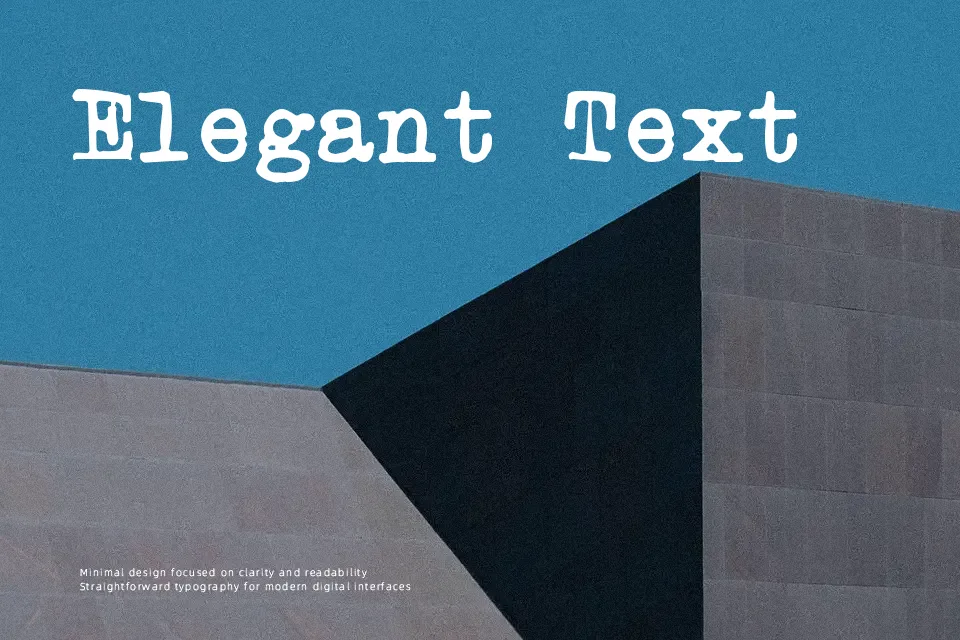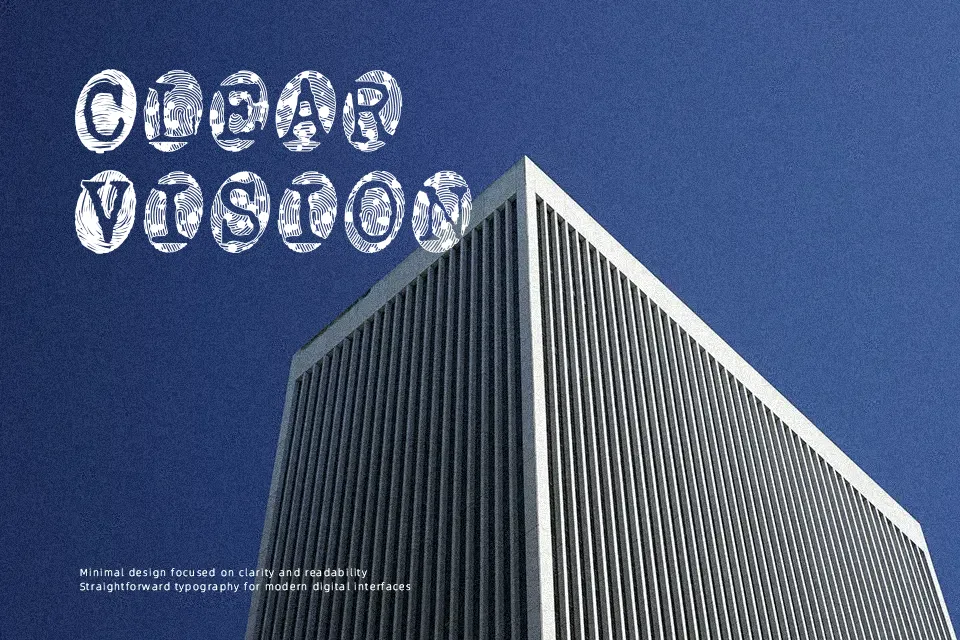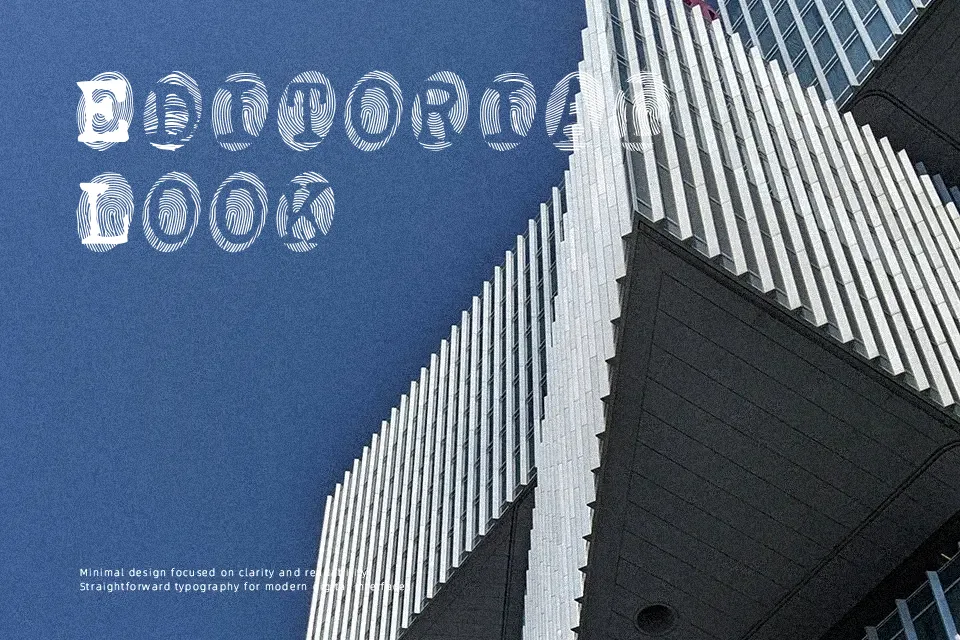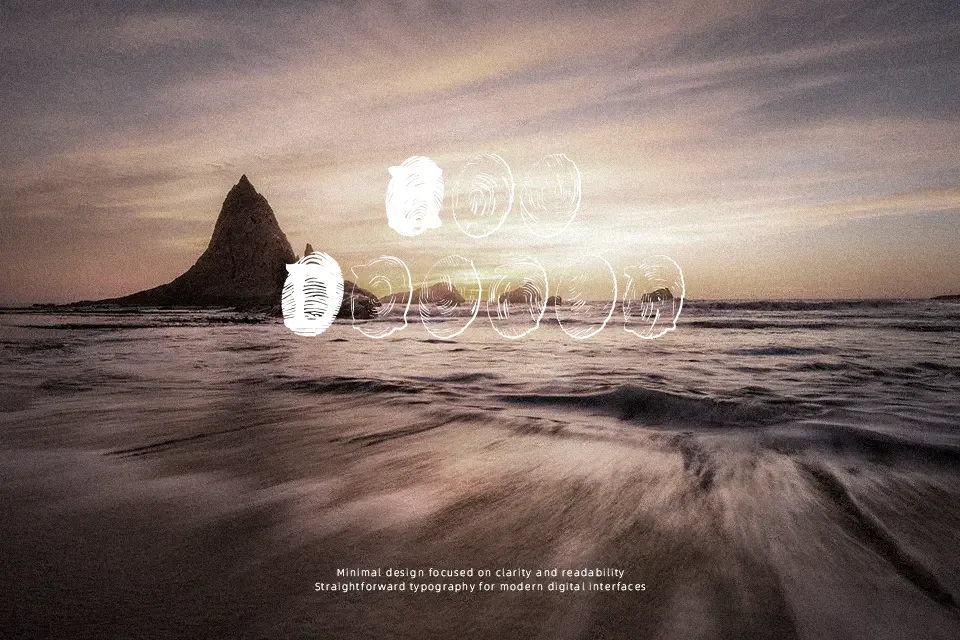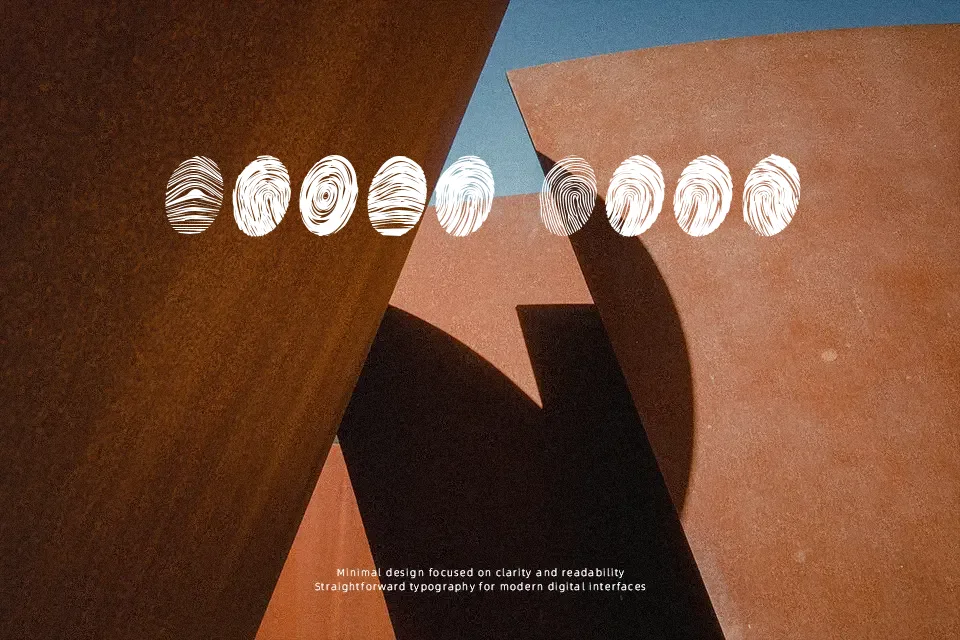
Powderfinger Font
Powderfinger Font performs best when displayed at larger sizes where its textured, smudged letterforms can be fully appreciated. The design features a heavily distressed, grunge-inspired typewriter aesthetic with imperfect strokes and a smeared, ink-heavy appearance. Its slightly irregular spacing and varying stroke thickness mimic the look of an old, malfunctioning typewriter ribbon. While the bold, rough character proportions create a striking visual impact for creative headlines and artistic layouts, these same decorative details can reduce continuous reading comfort. Dense forms and intentional ink blotches tend to become muddy in small text, making this design highly effective for statement pieces but less suitable for long paragraphs.
vintage product packaging
apparel graphics
coffee shop menu headers
spreadsheet data
Perfect for headline, music, and packaging, with a artistic and decorative style.